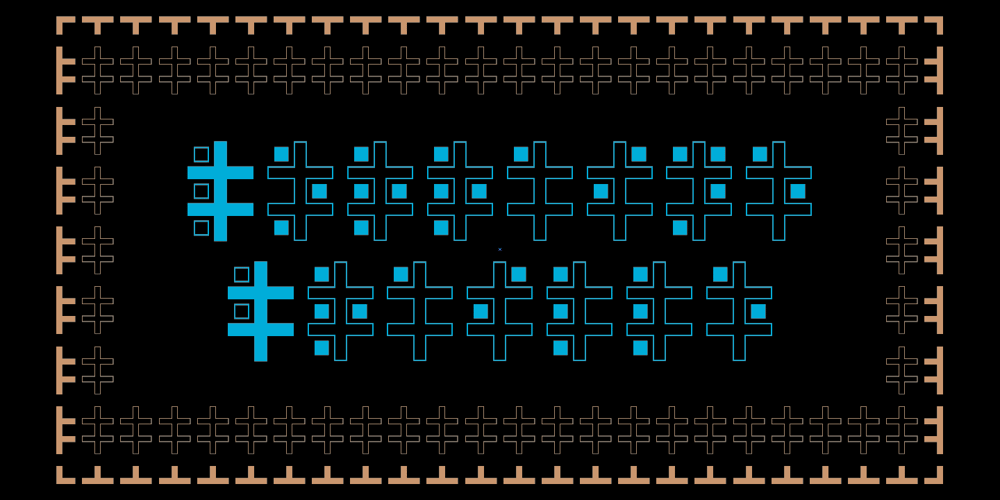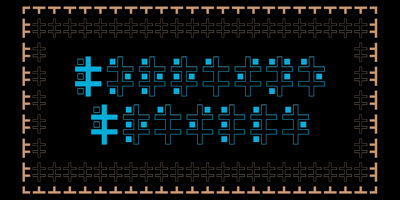
Lorraine Braille
Lorraine Braille font
Lorraine Braille Font Family was designed by Michel Kern and published by Echopraxium. Lorraine Braille contains 1 styles and family package options. This is a decorative and steganographic Braille font based on Lorraine Cross pattern. As the Lorraine cross splits space into six areas, it may be used to represent Braille glyphs.Provided Glyphs* Lowercase letters (a..z): a White cross and Black square dots* Uppercasecase letters (A..Z): a Black cross and White square dots* Special characters (e.g. !#$%*+<>{}()[]…)* Decorative glyphs (provided in black and white as well)Glyph code intervals- Codes 48..57: Bullets (0..9 digits)- Codes 130..150: ‘White Stars’- Codes 192..233: ‘Black Stars’, Black border glyphs and other black patterns.- Codes 214..233: Border/Decorative glyphs (Black)- Codes 235..255: Border/Decorative glyphs (White)- Codes for Cross w/o dots: Black (192), White (235)- Codes for Cross and 6 dots: Black (191), White (234)- Code for ‘Half-width space’ (166)Posters1. Logo: illustrates usage of border glyphs2. Meta: Two big Lorraine Braille glyphs drawn with pattern glyphs3. Stars: illustrates usage of ‘Star’ and pattern glyphs4. Bullets: illustrates usage of bullet glyphs (0..9)5. Human rights – Article 1NB:- Encoding is: Windows Latin (“ANSI”) – Published in two versions: Commercial and Free for personal use